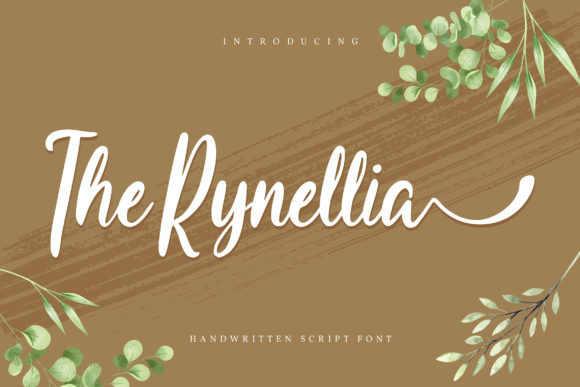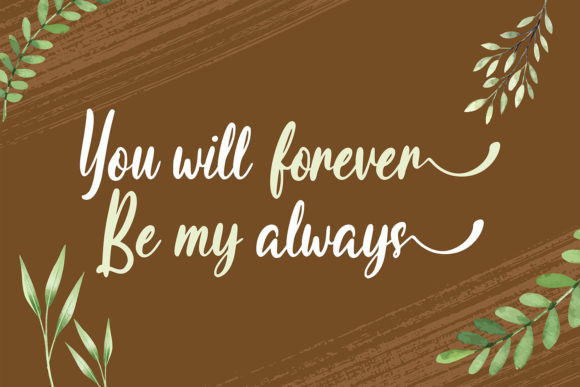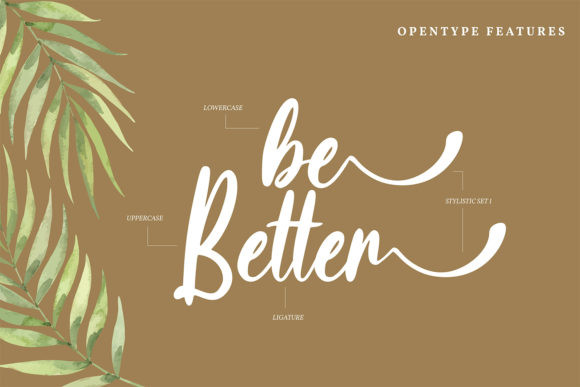
The Rynellia Font
The Rynellia FontThe Rynellia is a neat paint brushed handwritten font. This versatile script font has a wide spectrum of applications ranging from greeting cards to headlines and is guaranteed to add a romantic feel to your next project.